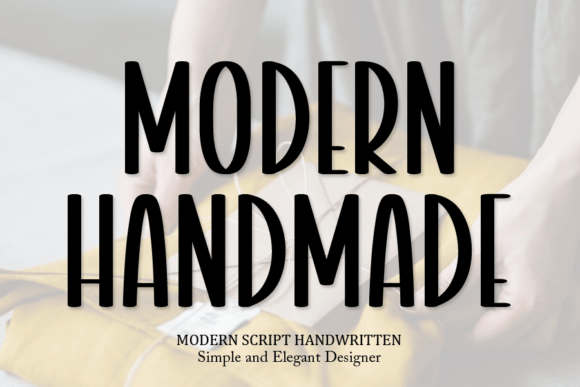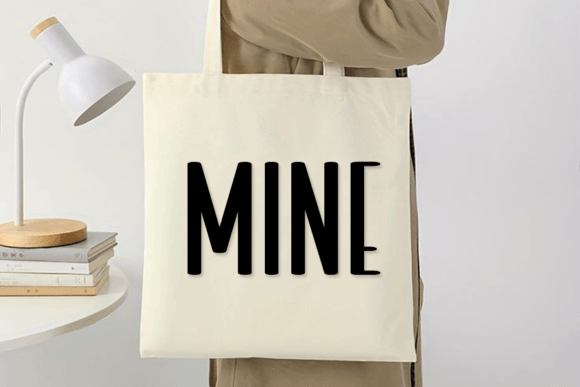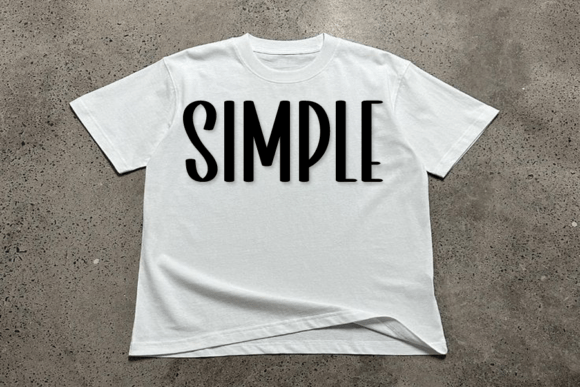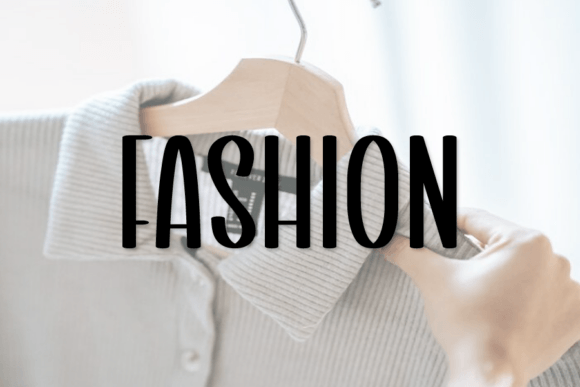
Modern Handmade Font
About the Modern Handmade Font
Elevate your designs with Modern Handmade Font, a font that combines sophistication with readability. Modern Handmade is a classic and simple handwritten script, created in a random and free style.
It is suitable for logotype, headline font, in corporate identity, brand identity, apparel industry, poster, music, movie, game, magazine, book, comic, cartoon, YouTube, Instagram, website, or any of your creative design projects.
Modern Handmade’s casual, slightly irregular strokes lend themselves best to headlines, short text blocks, and branding applications where a handcrafted, approachable feel is desired. It works exceptionally well for logos, posters, and social media graphics, adding a touch of personality. However, its less-than-optimal legibility makes it unsuitable for body text or UI elements requiring extended reading.
This font’s friendly and slightly playful personality pairs well with clean sans-serif fonts like Open Sans or Lato for a balanced contrast. For a more sophisticated feel, consider pairing it with a classic serif like Garamond or a geometric sans-serif such as Montserrat. Avoid pairing it with other script fonts, as this can create visual clutter.
The overall impression is one of approachable modernity, making it ideal for brands targeting a younger demographic or those wanting to project a creative and informal image.
Modern Handmade Font Usage Examples
Modern Handmade Font Example